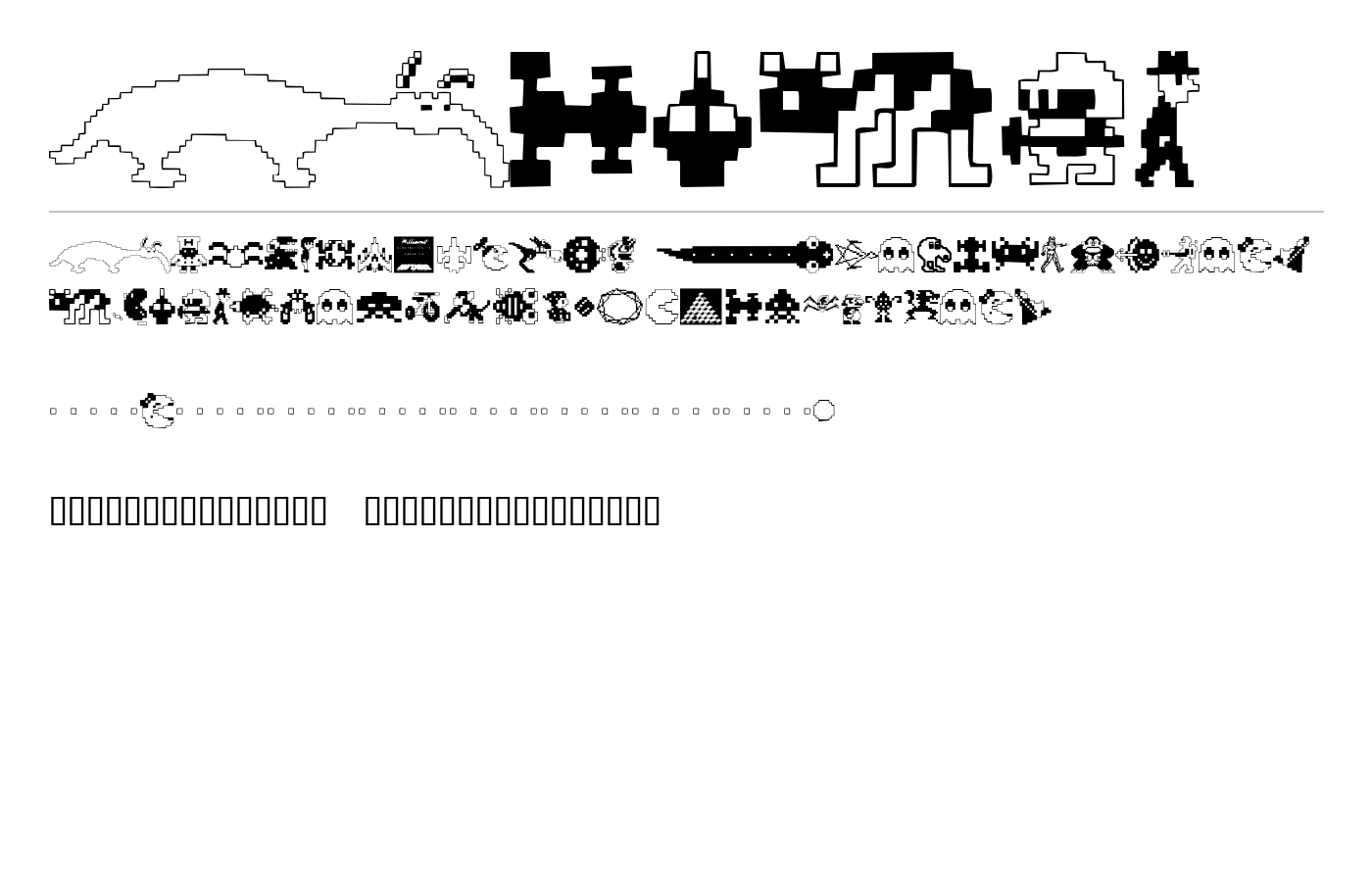
Arcade Font is a pixel-style, display typeface inspired by classic 8-bit video games, featuring blocky, geometric shapes with a square, pixelated edge that captures retro gaming nostalgia. Its bold, condensed form and playful character set, which includes pixel art symbols and icons, make it perfect for fun, vintage-themed designs, gaming logos, and digital art projects where a distinctive, old-school arcade vibe is desired.
Arcade Font